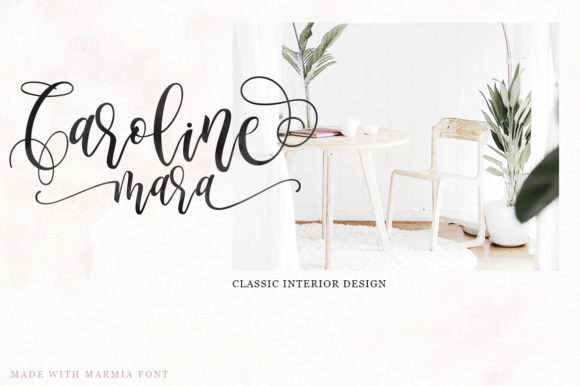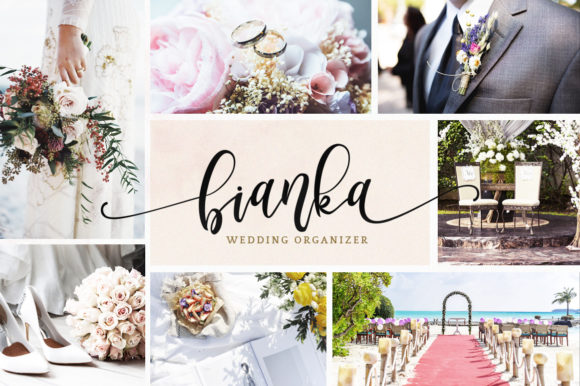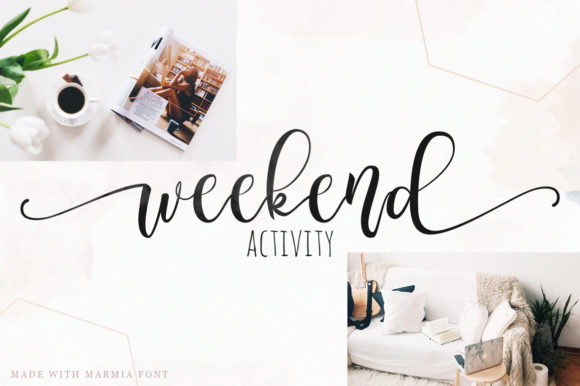
Introduction to Marmia Font
The Marmia is a bouncy hand-lettered script font.
It is full of hearts and glyphs and is perfect for branding, wedding invites, cards, and many projects that require style and elegance .
Marmia Font offers exceptional quality and versatility, making it a valuable addition to your design toolkit. Whether you’re creating for personal projects or commercial use, Marmia Font delivers professional results.